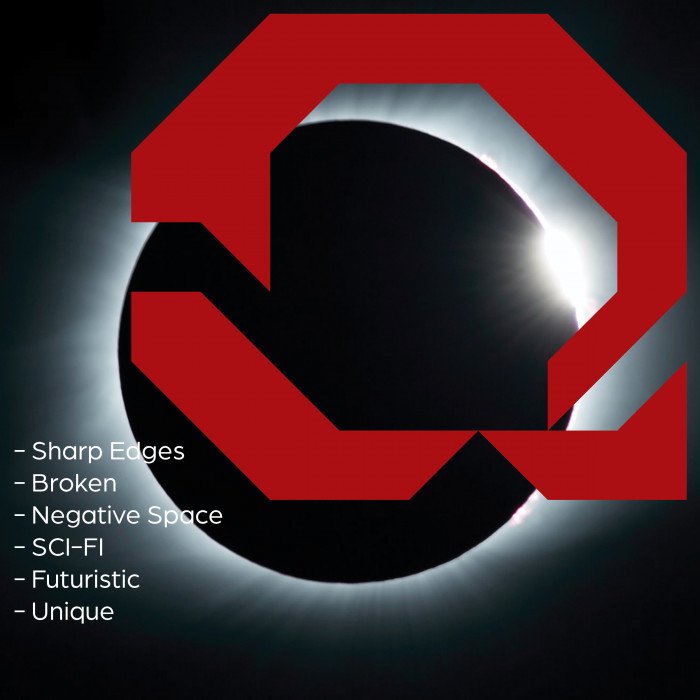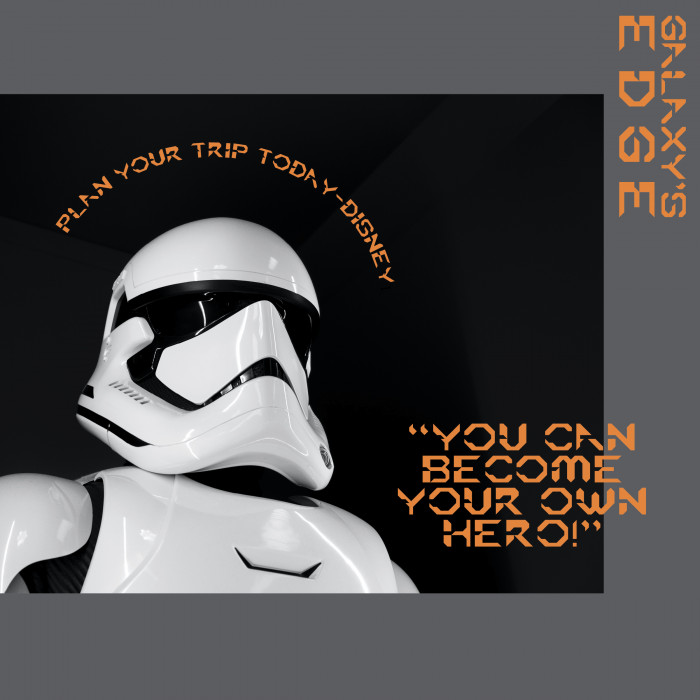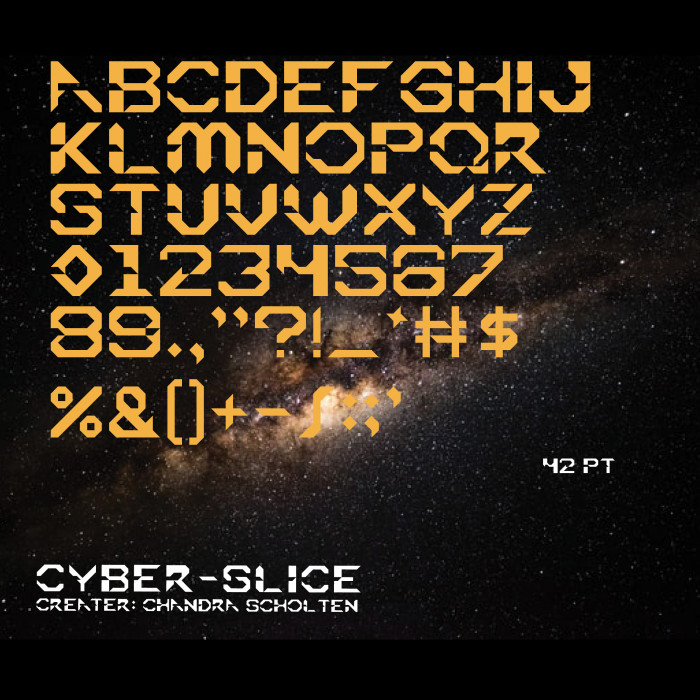
• This Typeface is sharp, bold and futuristic. The characters act as if a blade has been pierced through them, creating a fun and aggressive look. It can be used for video games, advertisement, and comic books.
CYBER-SLICEby Chandrascholten